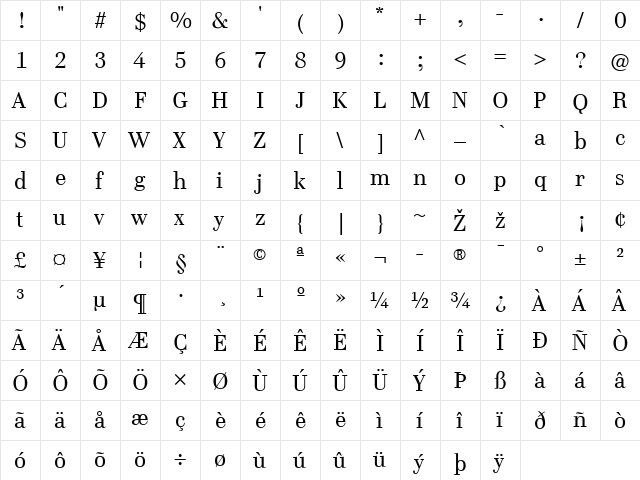
CelliniTF-Regular Regular
| Foundry | Albert Boton, published by FontShop International for the FontFont Library |
| Designer | Albert Boton |
Design Context for CelliniTF-Regular Typeface
CelliniTF-Regular is a composed and adaptable typeface that performs quietly and consistently across a wide range of design contexts.